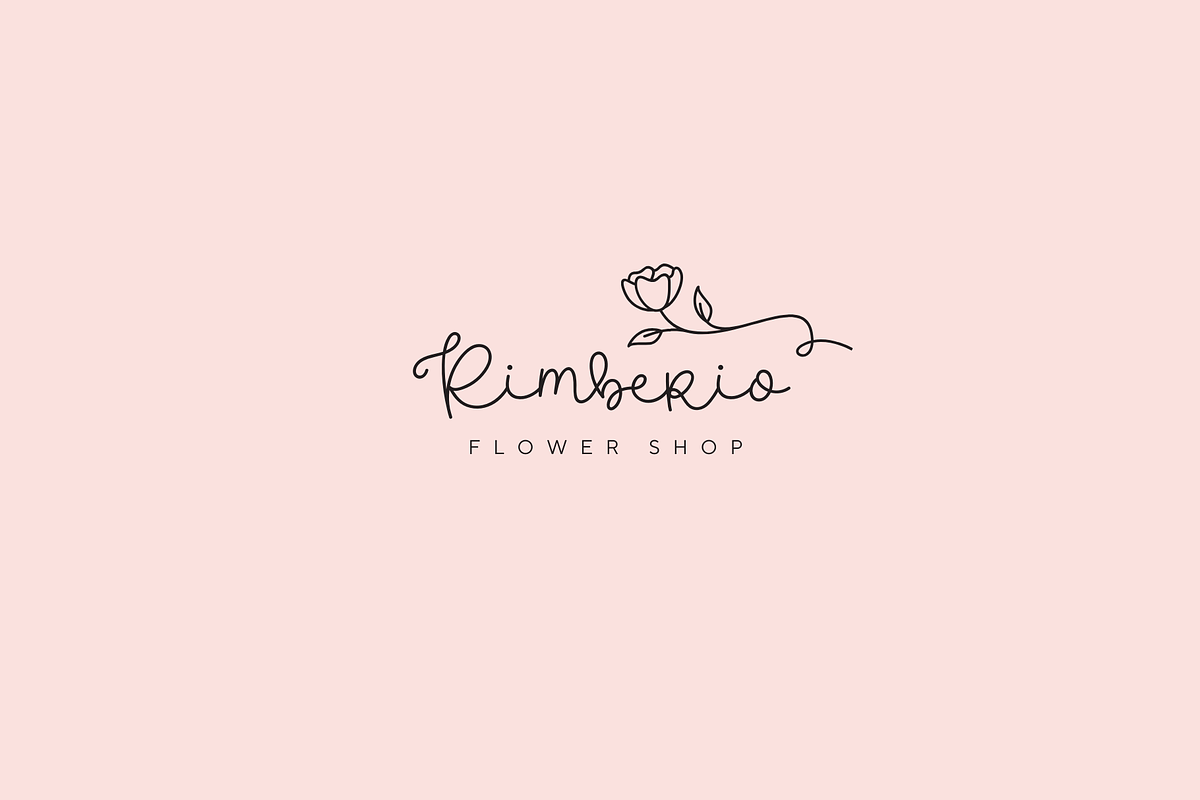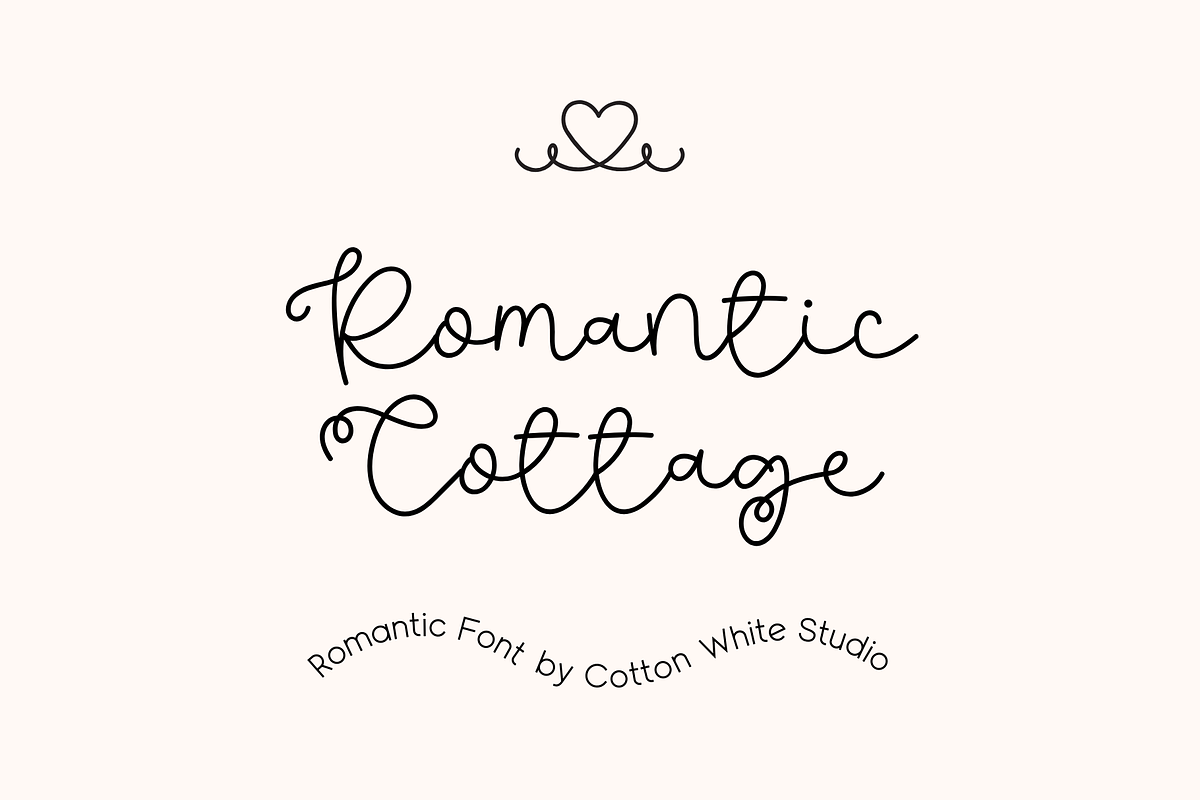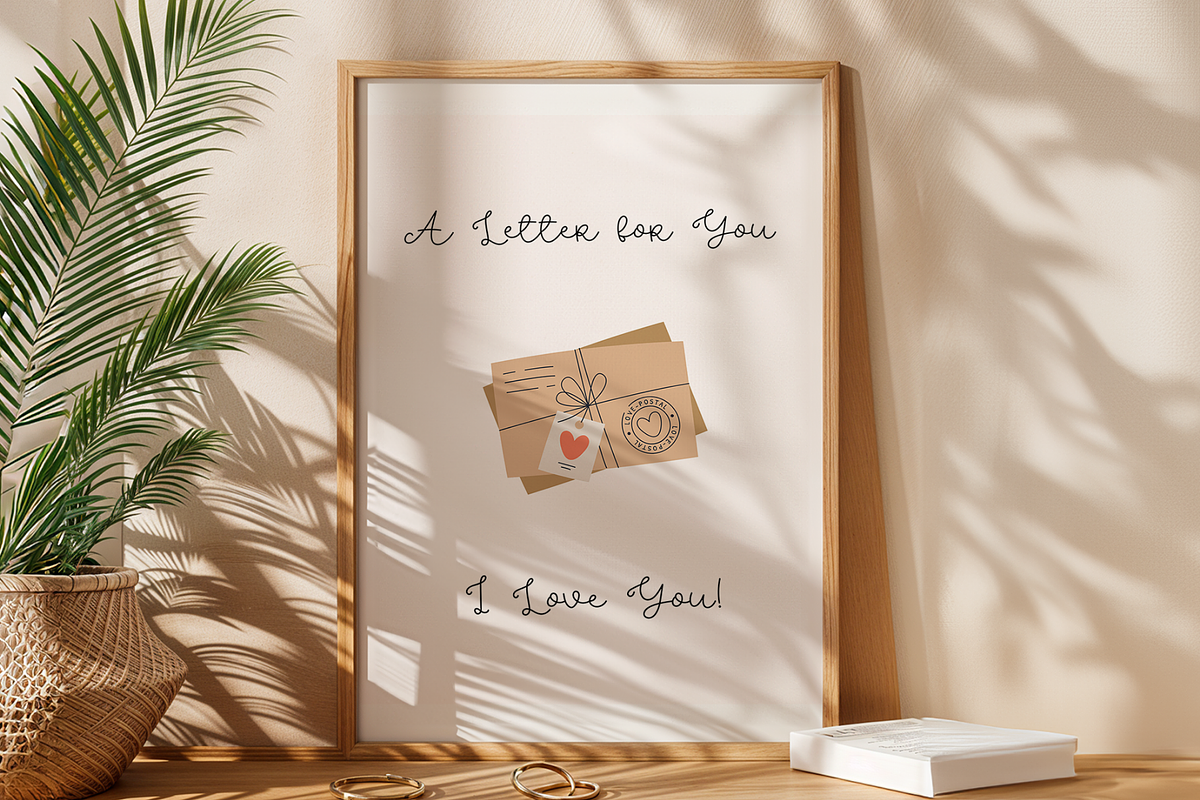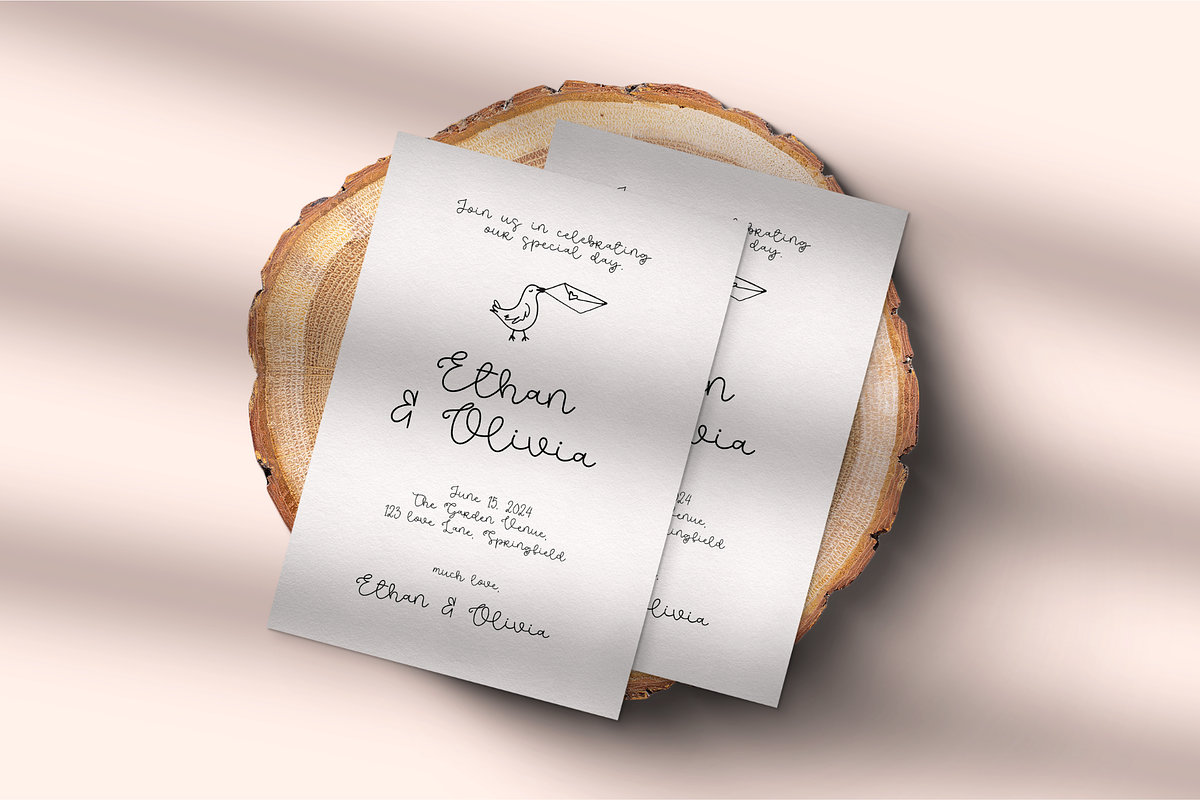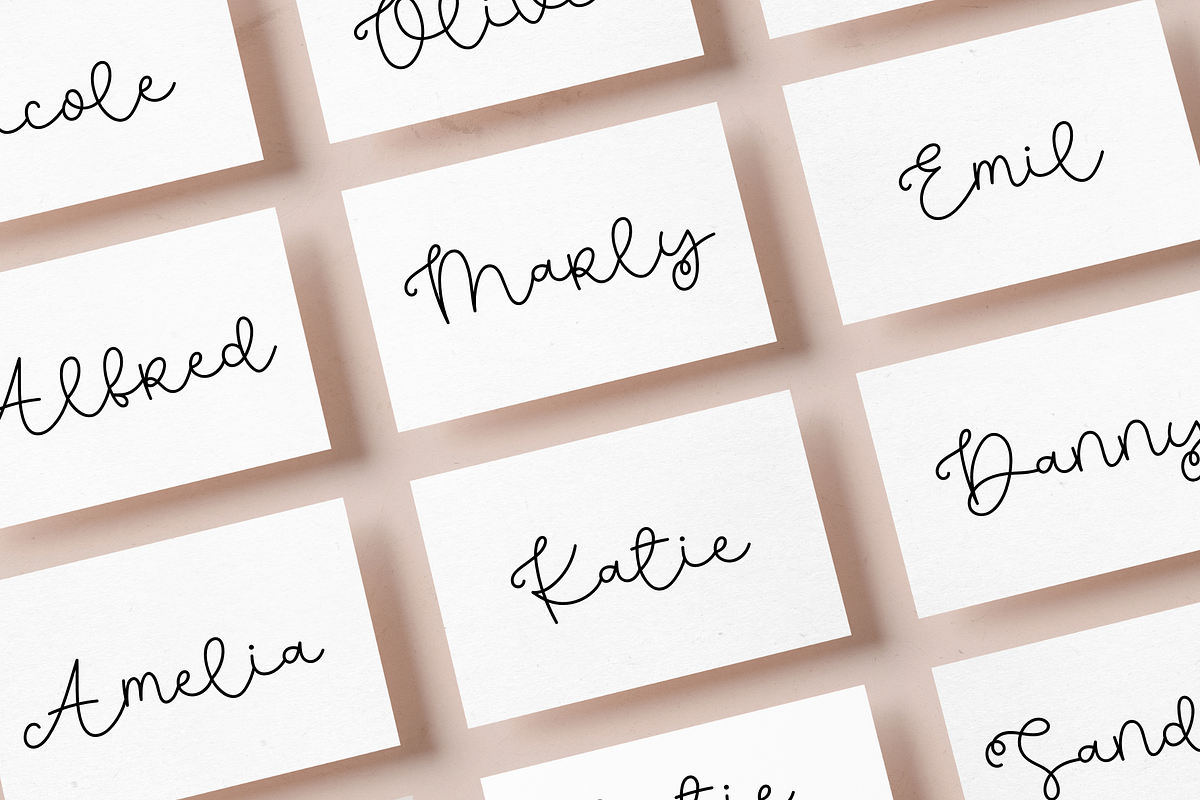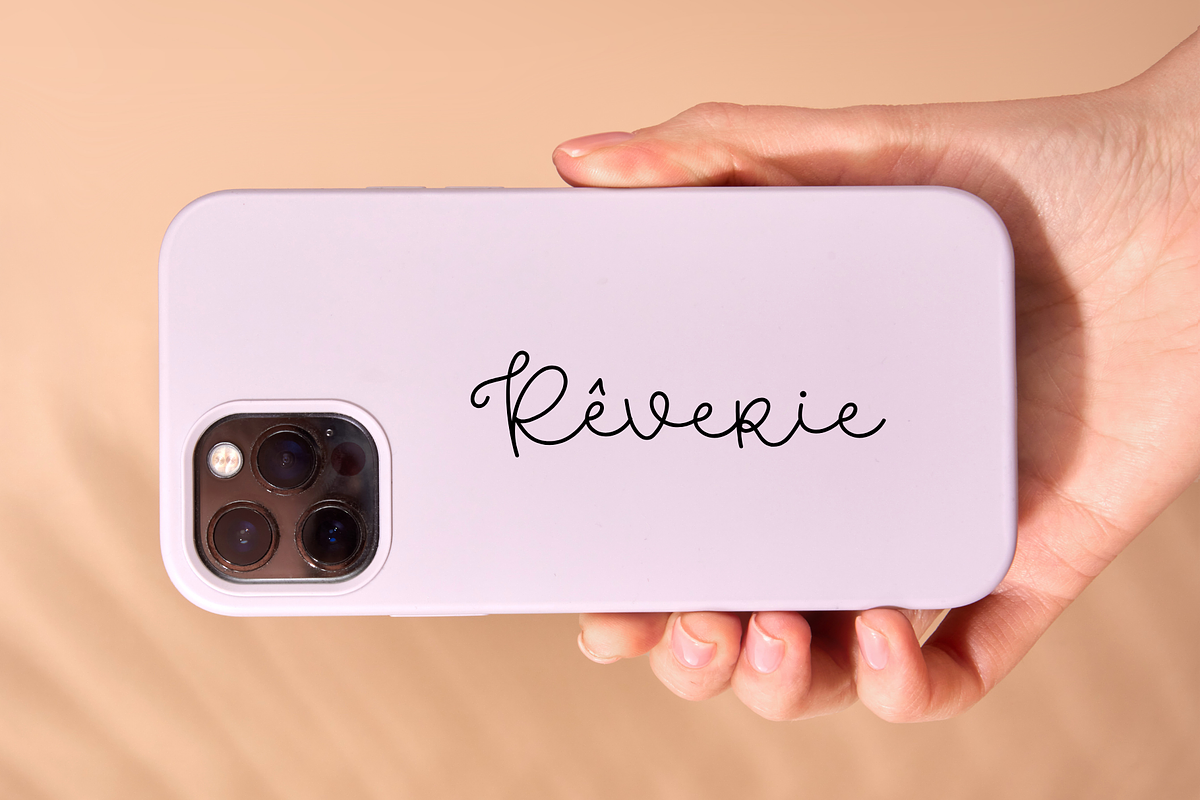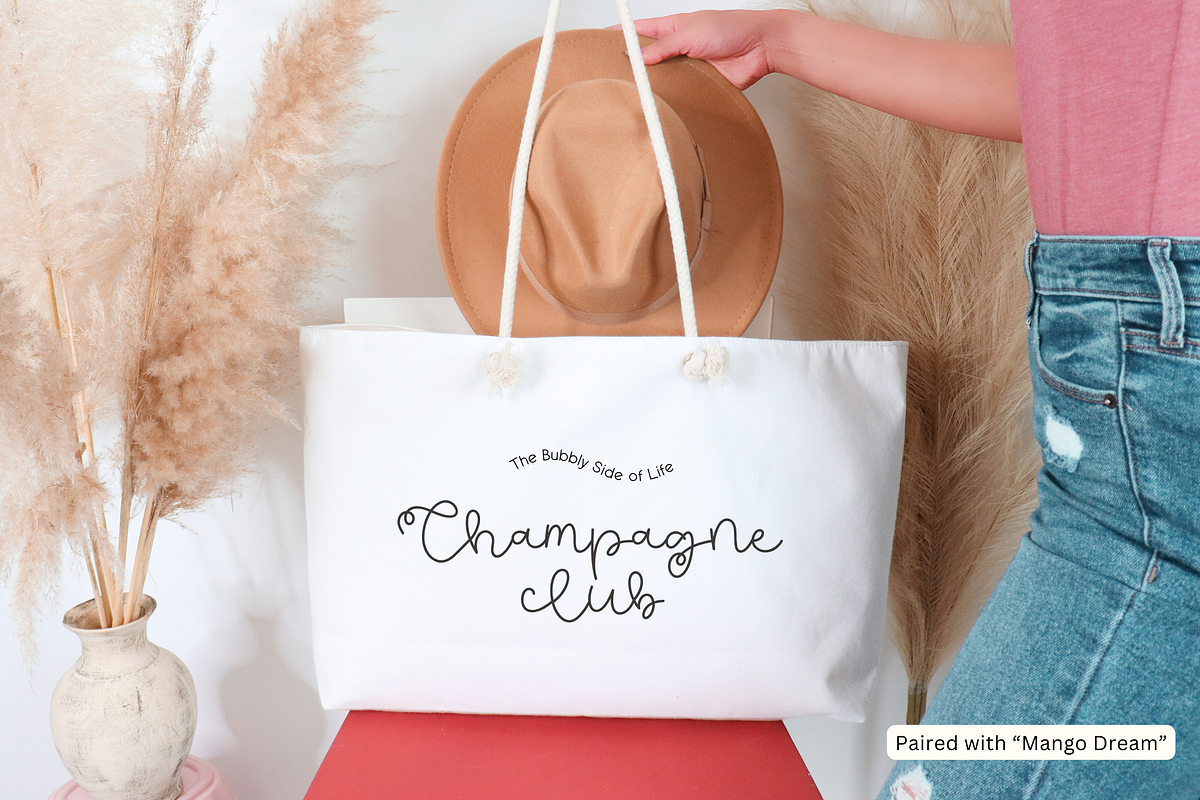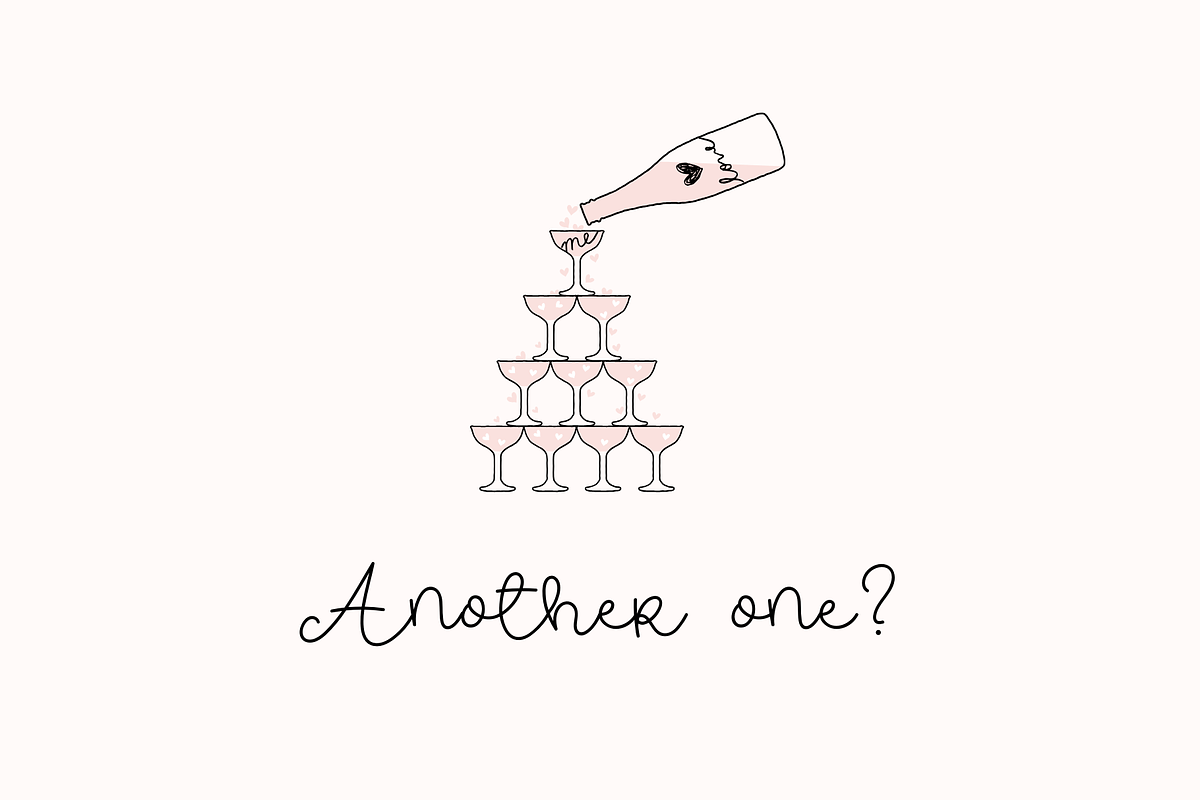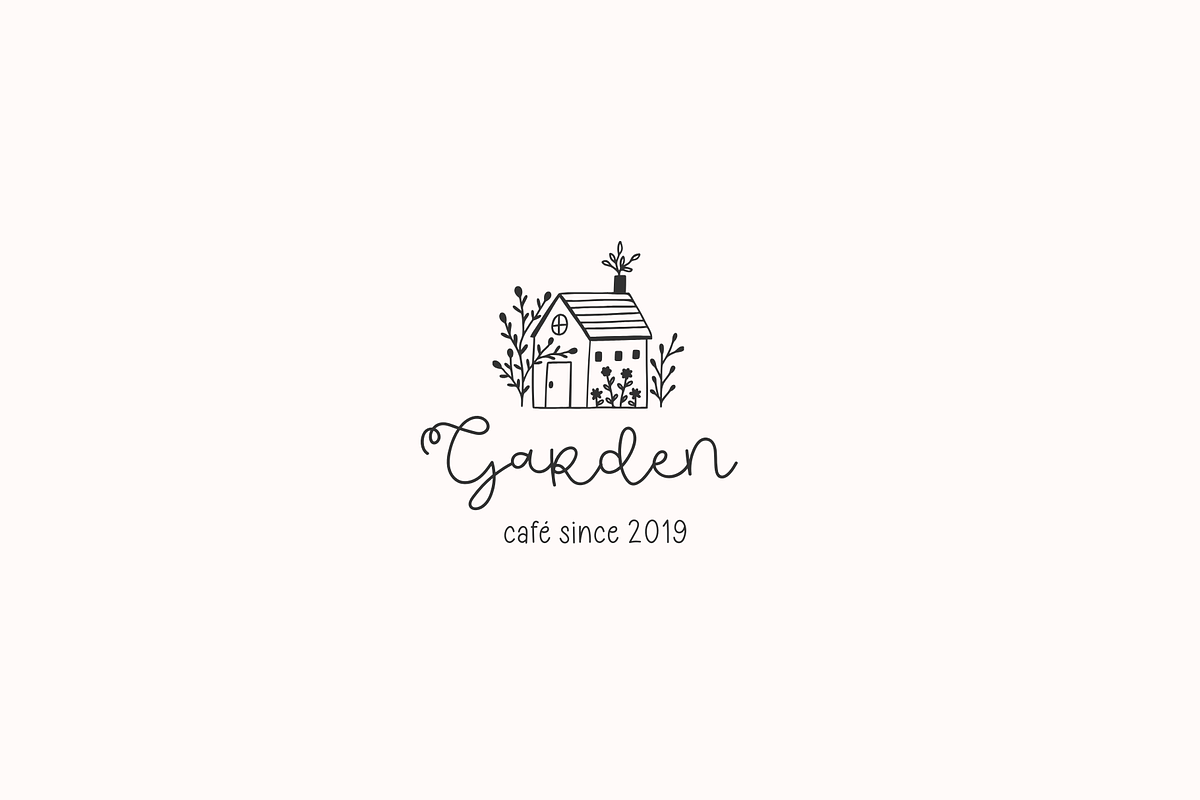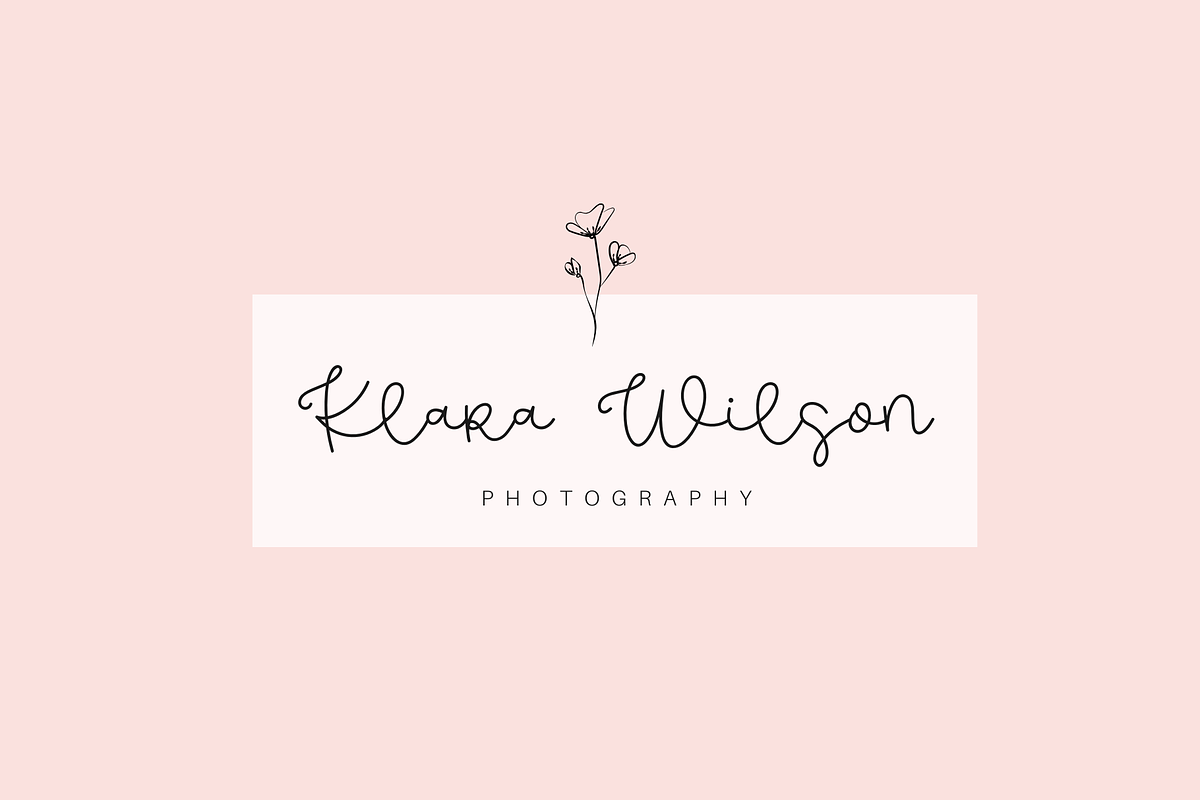
Romantic Cottage
Add a beautiful, hand crafted look to your work with the fabulously Romantic Cottage scripted font! A hand drawn elegant font that will add a uniq touch to your work. Perfect for branding, invitations, blogs, planners and much more.